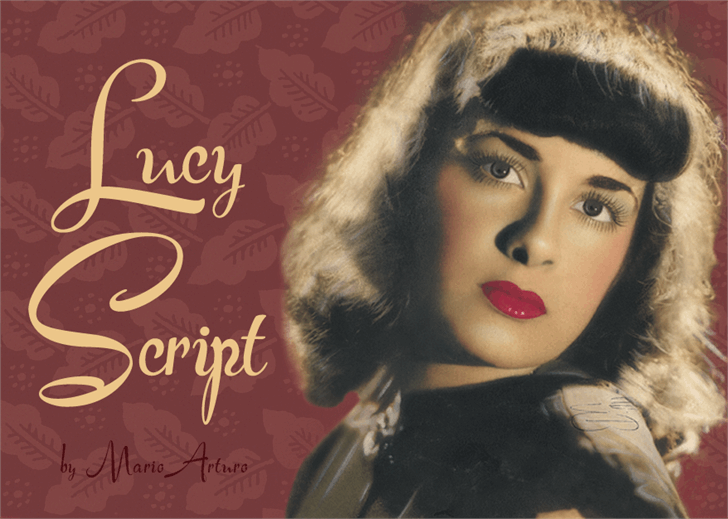
Free Lucy Script Font
Today we're glad to feature this free lucy script font. This font file was found from the amazing source called Font Space. This is absolutely beautiful font so you can easily make world-class designs.